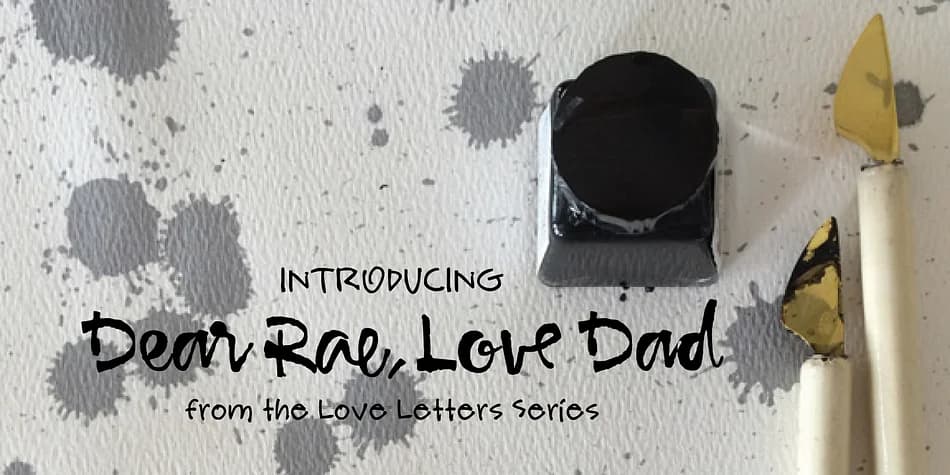
Dear Rae, Love Dad by Outside the Line is a modern calligraphy script that captures the warmth and personality of handwritten correspondence. Created with actual ink and a folded nib pen on textured watercolor paper, the letterforms carry genuine character and natural flow that feels personal without veering into overly decorative or precious territory.
It shines in OpenType-compatible software, where it automatically rotates stylistic alternates as you type, giving each word a slightly different feel. This makes it ideal for wedding invitation text, personal letterhead design, handwritten-style greeting cards, and custom stationery projects where you want variety that reads authentic rather than repetitive. The upright, dramatic letterforms work equally well at large display sizes or in smaller body copy applications, adapting to different design scenarios without losing legibility. You also get a companion set of decorative elements, blobs and hearts, which pairs beautifully for accent details or embellishments that help tie designs together.
Dear Rae, Love Dad Font is a script font that shines as a display or heading face. Pair it with a clean sans-serif or serif font for body text β the contrast creates a clear hierarchy while the two styles stay balanced and easy to read.